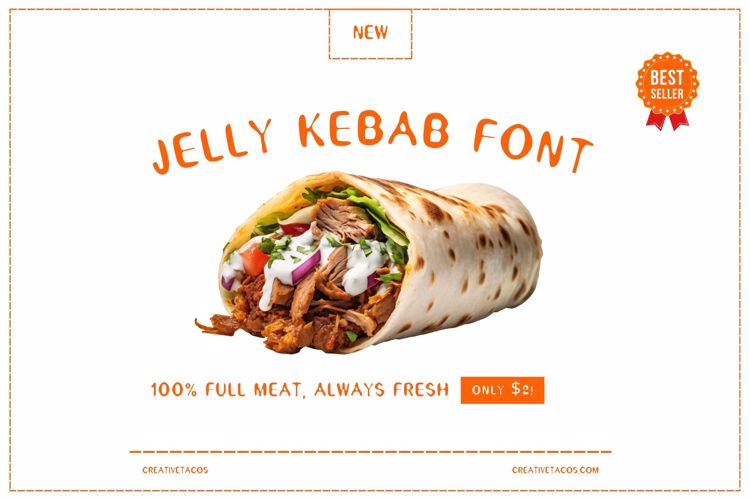
Jelly Kebab Font
Jelly Kebab Font is a playful and quirky typeface that adds a fun twist to your designs. With its bouncy and uneven letters, this font brings a lively and whimsical feel to any project. The characters are soft and slightly wobbly, resembling a jelly-like texture, making it perfect for children's designs, playful invitations, and creative crafts. Whether you're designing posters, social media graphics, or party decorations, Jelly Kebab Font will give your text a unique and entertaining look that stands out. It's a great choice for adding a touch of humor and lightheartedness to your work.